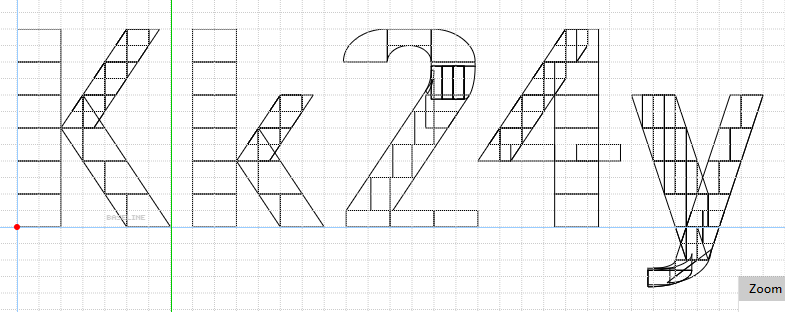
This look exquisite mate, I think it was intentional to add contrast to letters such as A,M,N,V,W,X,Y and so on, but why not for K,k,2,4,?,§ and probably some more!?
Nonetheless, great font so far.
some alts if you'd like to add contrast (K, k, 4)/improve curves (2, y)